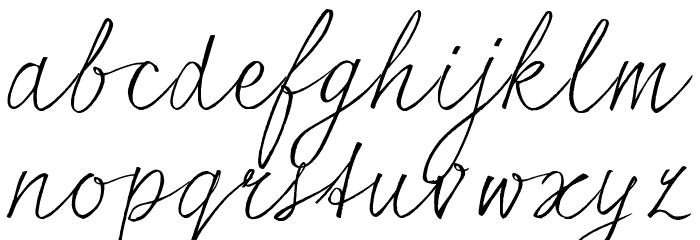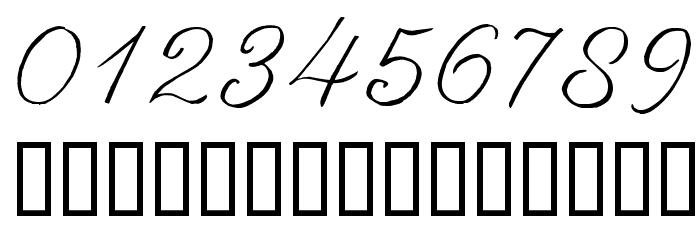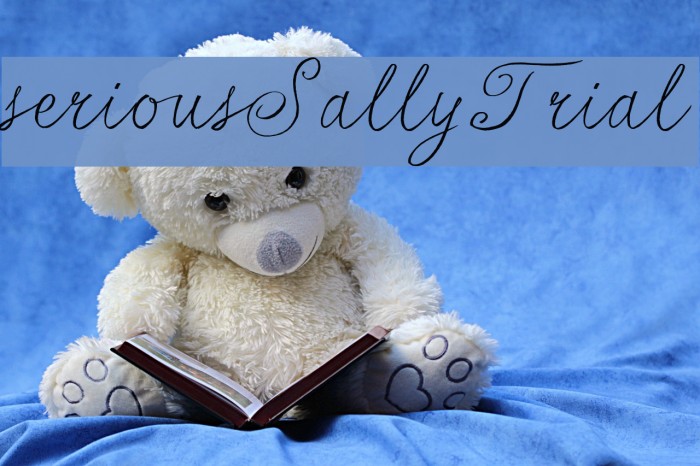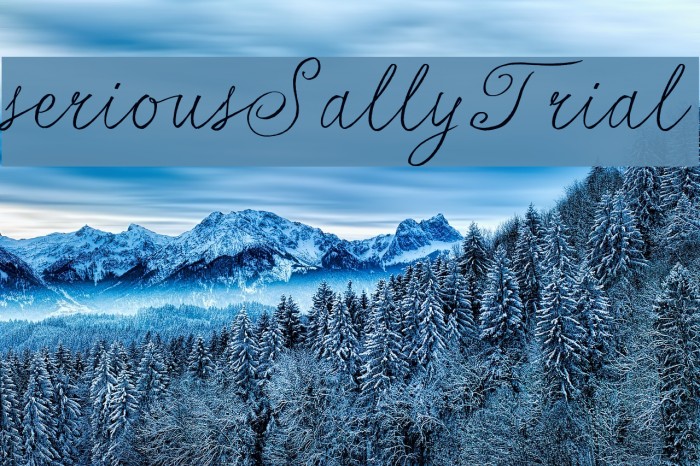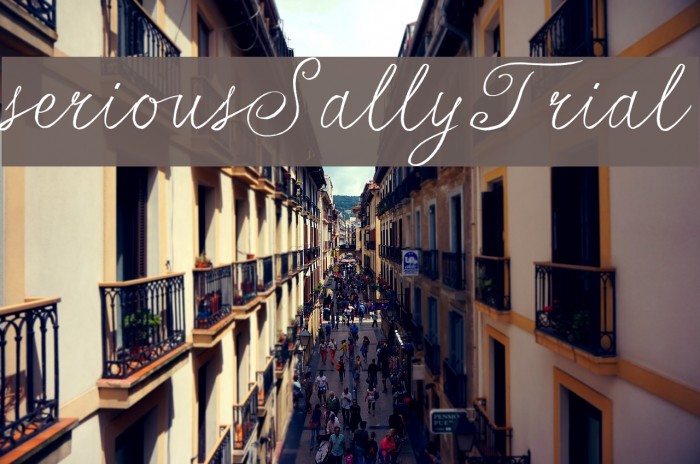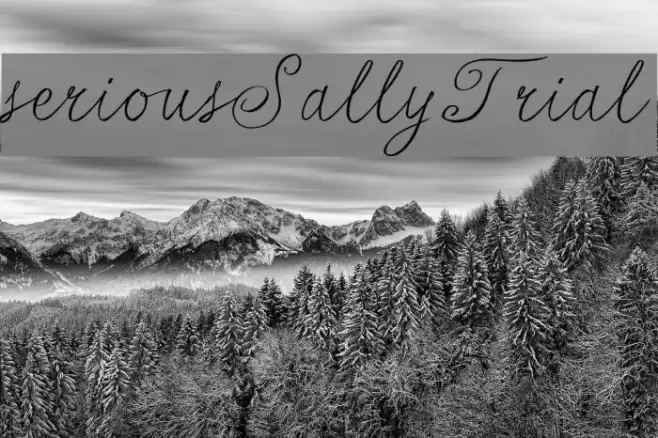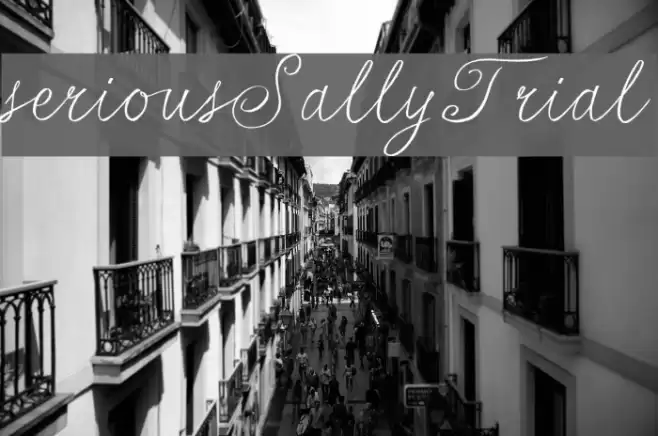
seriousSally_Trial Font
This elegant script font features a flowing, cursive style with delicate, looping strokes that give it a sophisticated and graceful appearance. The uppercase letters are ornate, with intricate curves and flourishes, while the lowercase letters maintain a consistent, fluid motion that enhances readability. The numerals are styled to match the overall aesthetic, providing a cohesive look. This font is perfect for projects that require a touch of elegance and sophistication, such as wedding invitations, formal event programs, or upscale branding materials.
An elegant script font with flowing, cursive strokes and ornate details.
- Proposed Projects: Ideal for wedding invitations, formal events, upscale branding, and elegant stationery.
- Overall Style: Elegant, Sophisticated
- Use Case: Headlines, Invitations, Branding